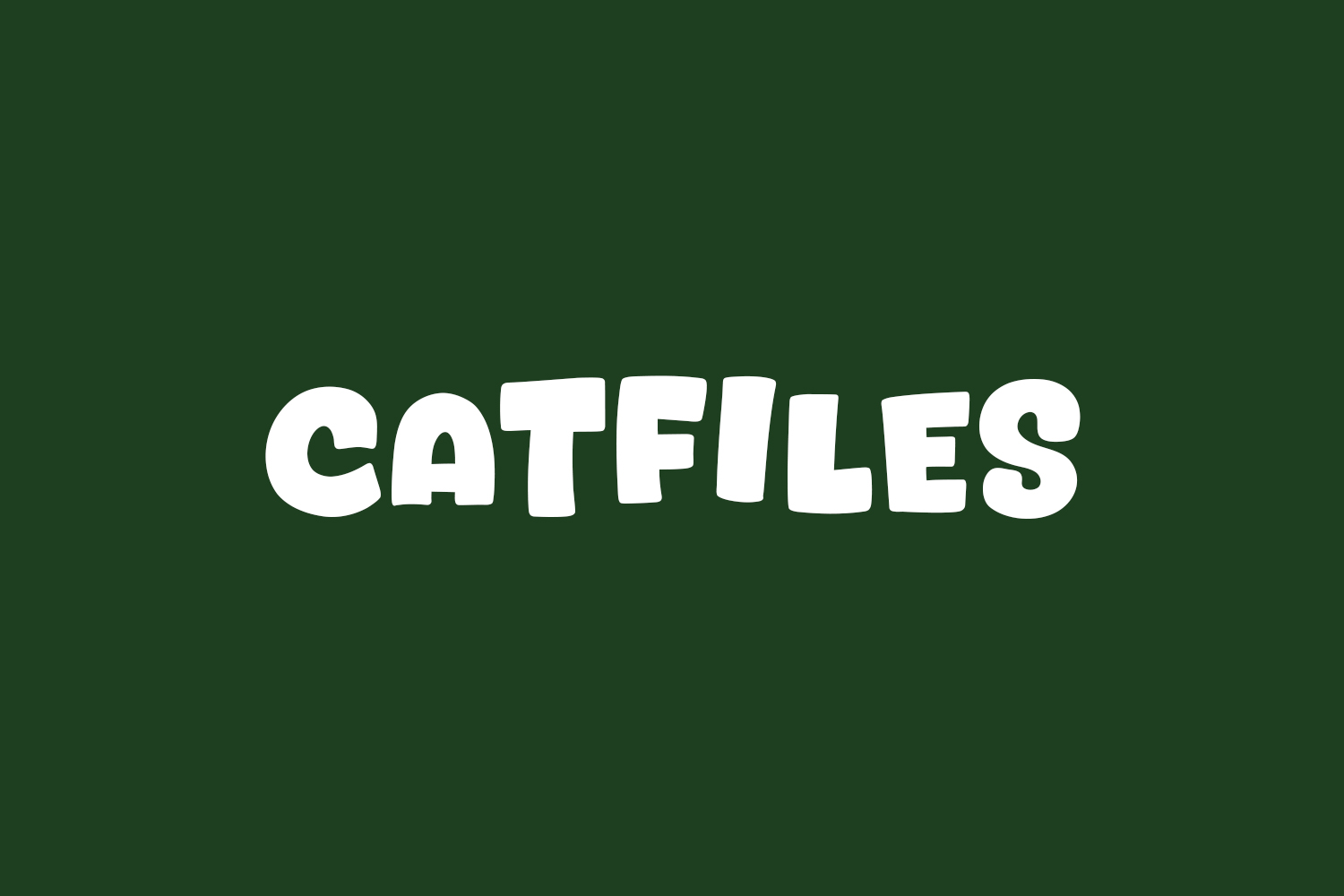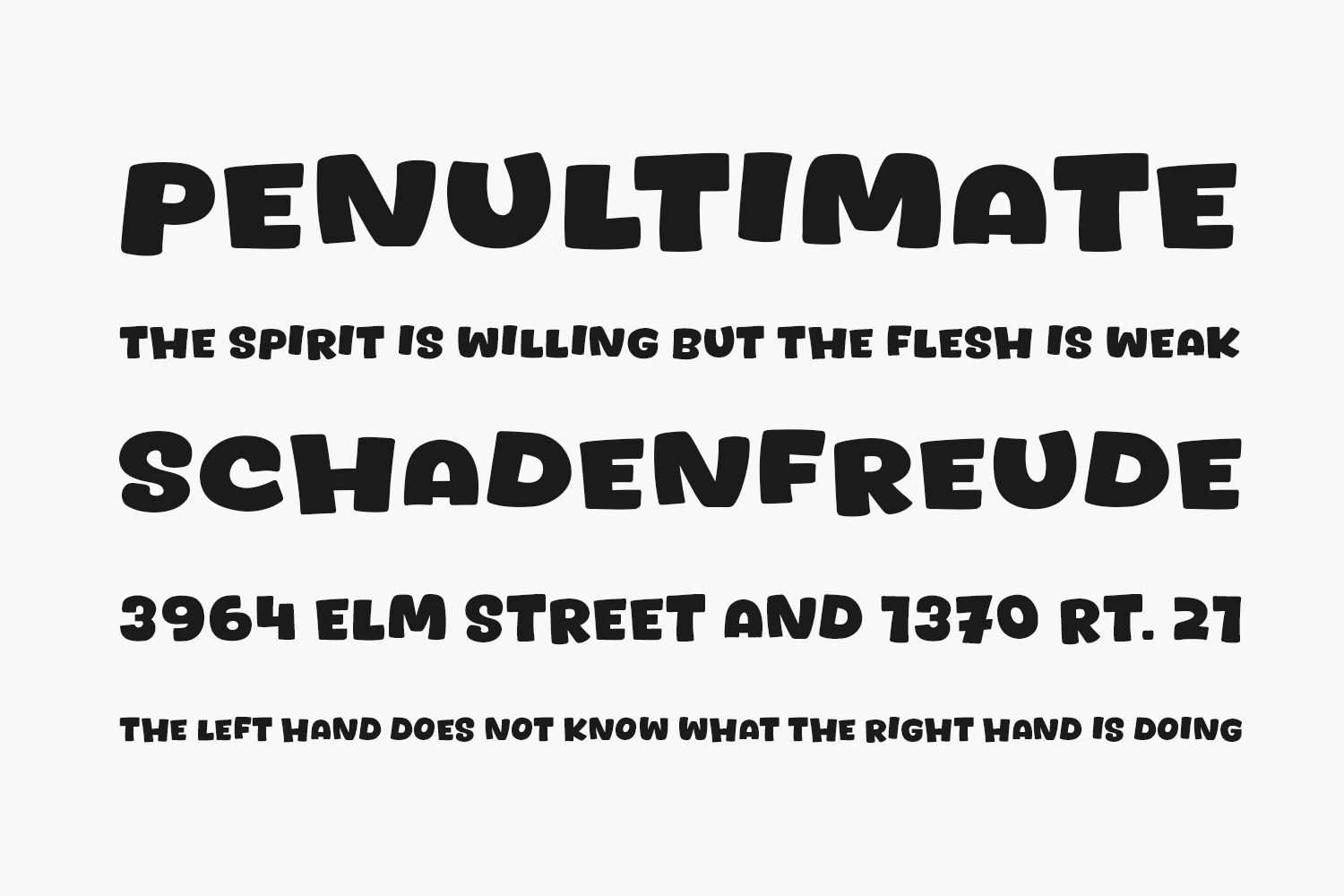
Introducing Catfiles Free Font, a contemporary and sophisticated display font designed to elevate your creative projects. Whether it’s posters, logos, magazines, book covers, banners, or beyond, Catfiles is the perfect choice. Unlock its potential to enhance a diverse range of designs and watch as your creations truly stand out. Embrace Catfiles and let your imagination flourish. Download the font for free if you need it for personal or commercial use.